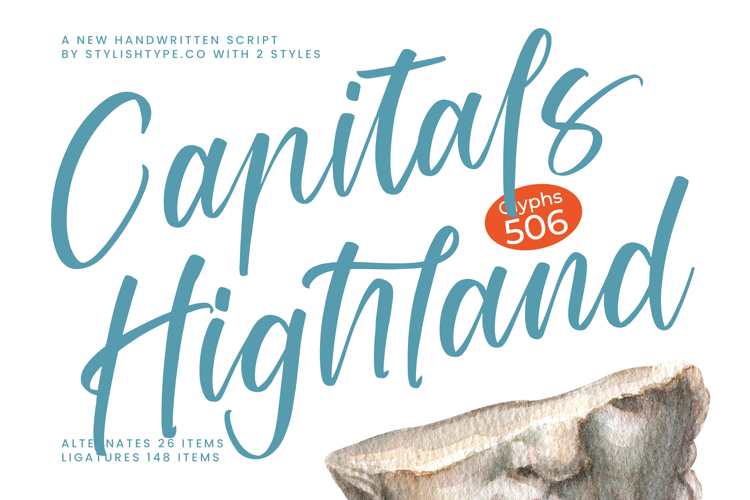
Capitals Highland - New Handwritten Script
Capitals Highland - New Handwritten Script is an OpenType powerhouse. Featuring over 500 total glyphs, including 148 sophisticated ligatures and 26 alternates, it allows for seamless customization and natural letter variation, eliminating the repetitive look common in lesser scripts. This extensive feature set ensures designers can achieve truly unique headline treatments and impactful logo lockups with minimal effort.